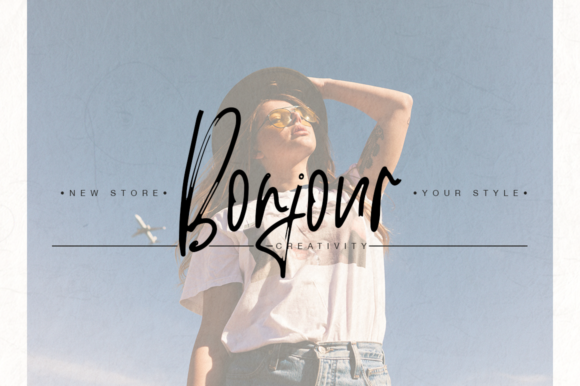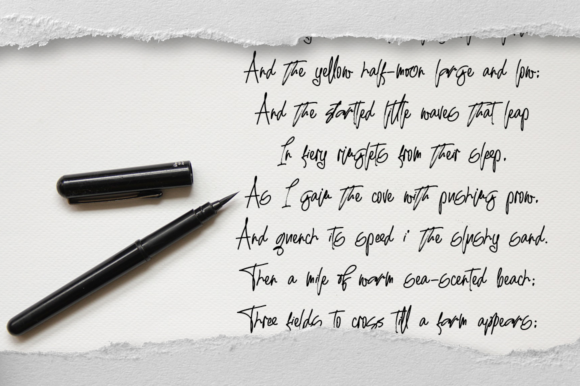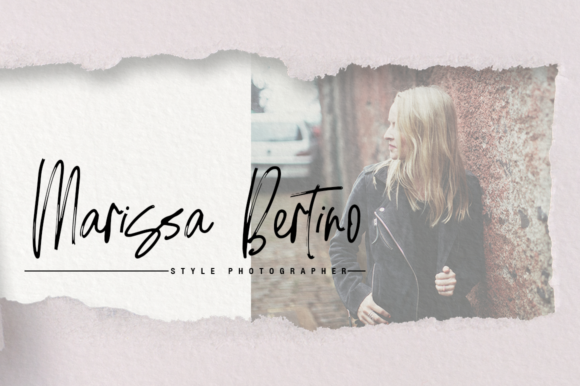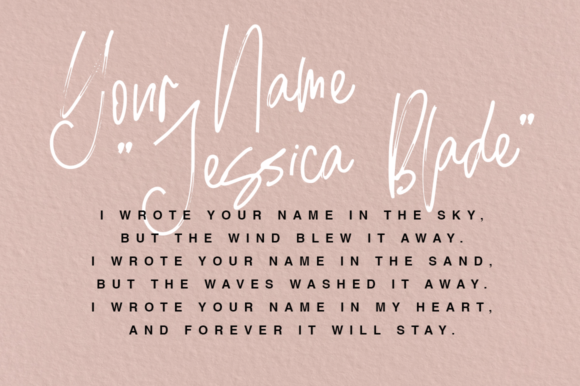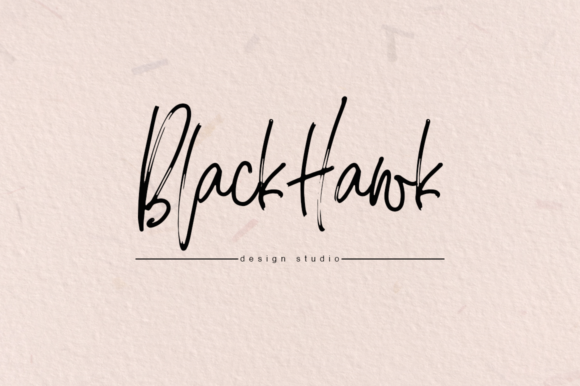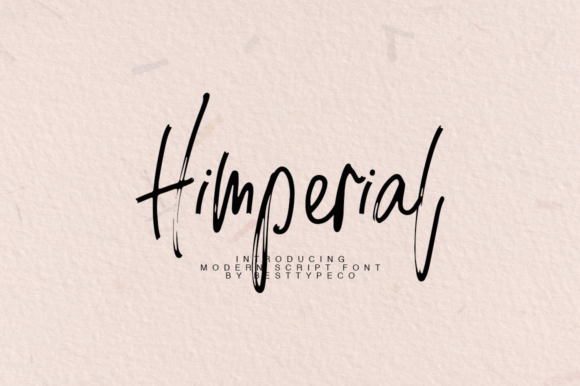
HomeScript FontsHimperial Font Script Fonts Himperial Font FacebookXPinterestWhatsApp Himperial Font Poster 2 Himperial Font Poster 3 Himperial Font Poster 4 Himperial Font Poster 5 Himperial Font Poster 6 About Himperial Font Himperial is a light and breezy handwritten font with a unique charm. Fall in love with its organic feel! DOWNLOAD NOW People also explored Hand Made Font Night Time Font Liya Hary – Lovely Heart Script Font Pinko Font School Font Alantis Font Happy Wedding The Hungry Font Tahnia Font 294 0 TagsHimperial Font Previous articleAmorra Script FontNext articleAliyah Font LEAVE A REPLY Cancel reply Comment: Please enter your comment! Name:* Please enter your name here Email:* You have entered an incorrect email address! Please enter your email address here Website: Save my name, email, and website in this browser for the next time I comment. Personal Use Free Token No 721 Personal Use Free Read more about this font Penelope Brush Script Font Personal Use Free Read more about this font Stronger Personal Use Free Read more about this font Spaghetti Personal Use Free Read more about this font BLOG Modern Sans-Serif Fonts That Brands Love in 2025 In 2025, modern sans-serif fonts remain a top choice for brands looking to project clarity, professionalism, and... Elegant Wedding Invitation Fonts – Handwritten & Script Fonts 5 Fonts That Will Dominate Design Trends in 2026 Free Fonts Risk: Why Free Fonts Can Be Dangerous for Designers